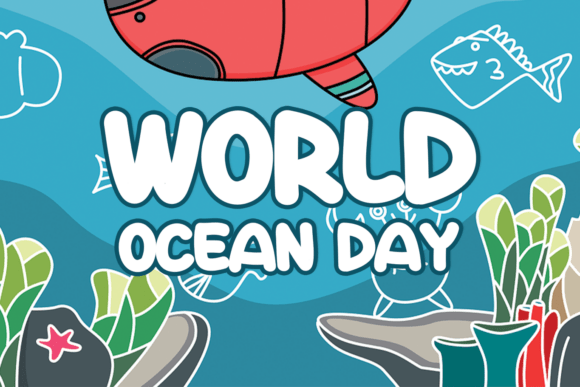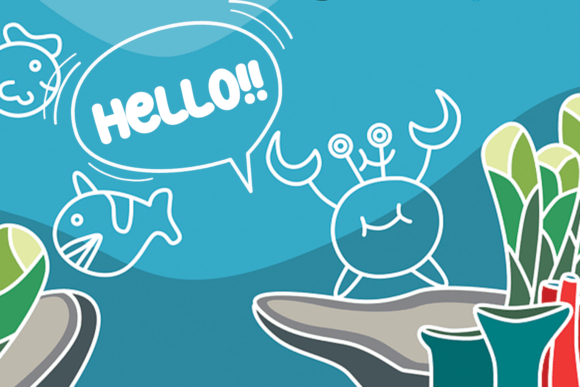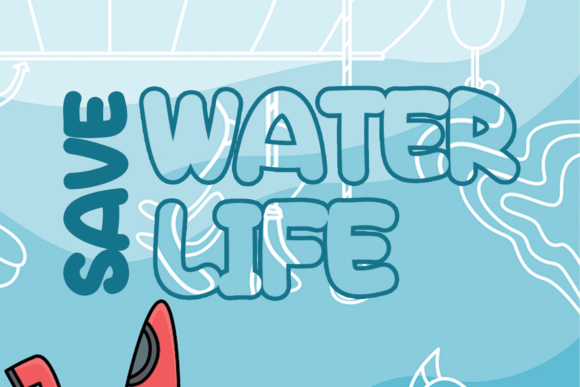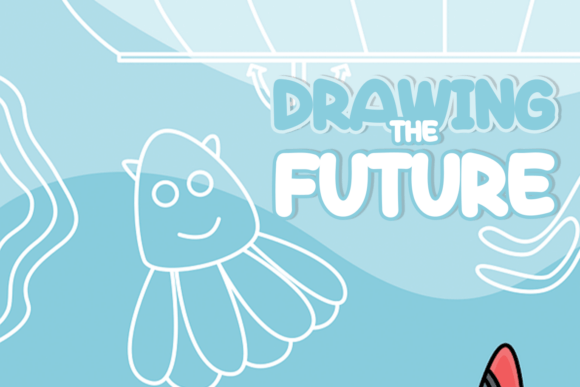
Introducing the Magical World of Disney Font
Are you a designer, crafter, or simply a Disney enthusiast looking for a font that can add a touch of magic to your creative projects? Look no further than the Disney Font! This bold, thick-lettered, and modern display font is expertly designed to make your creation look out of this world. In this article, we’ll dive into the world of Disney Font, exploring its features, benefits, and uses, as well as provide tips and inspiration for incorporating it into your designs.
What is Disney Font?
Disney Font is a modern display font that is inspired by the iconic and beloved Disney brand. Characterized by its bold, thick letters and sleek lines, this font is perfect for creating eye-catching headlines, titles, and captions that demand attention. Its unique design makes it an excellent choice for a wide range of creative projects, from posters and flyers to social media graphics and merchandise.
Key Features of Disney Font
- Bold and Thick Letters: The Disney Font features bold, thick letters that are perfect for creating eye-catching headlines and titles.
- Modern Design: The font’s sleek lines and modern design make it an excellent choice for a wide range of creative projects.
- High Versatility: The Disney Font is highly versatile and can be used for a variety of design projects, from posters and flyers to social media graphics and merchandise.
- Easily Readable: Despite its bold design, the Disney Font is easily readable, making it perfect for use in titles, headings, and captions.
Benefits of Using Disney Font
So, why should you choose Disney Font for your creative projects? Here are just a few benefits of using this amazing font:
- Adds a Touch of Magic: The Disney Font adds a touch of magic to your designs, making them stand out from the crowd.
- Increases Readability: The font’s bold design and clear lines make it easily readable, even at small sizes.
- Perfect for Branding: The Disney Font is perfect for creating branded materials, such as logos, business cards, and letterheads.
- Great for Crafters: The font is also great for crafters, who can use it to create custom signs, labels, and other DIY projects.
Using Disney Font in Your Designs
So, how can you use Disney Font in your designs? Here are a few ideas to get you started:
- Create Eye-Catching Headlines: Use Disney Font to create bold, eye-catching headlines that demand attention.
- Design Custom Posters: Use the font to design custom posters for events, promotions, or simply for fun.
- Make Social Media Graphics: Use Disney Font to create social media graphics that stand out from the crowd.
- Create Merchandise: Use the font to create custom merchandise, such as t-shirts, mugs, and tote bags.
Tips for Working with Disney Font
Here are a few tips for working with Disney Font:
- Use it Sparingly: While Disney Font is bold and eye-catching, it can be overwhelming if used too much. Use it sparingly to create emphasis and add visual interest.
- Pair it with Other Fonts: Disney Font pairs well with a variety of other fonts. Experiment with different pairings to find the one that works best for your design.
- Experiment with Colors: Disney Font looks great in a variety of colors. Experiment with different colors to find the one that works best for your design.
In conclusion, Disney Font is a bold, thick-lettered, and modern display font that is expertly designed to make your creation look out of this world. With its unique design, high versatility, and ease of use, it’s perfect for a wide range of creative projects. Whether you’re a designer, crafter, or simply a Disney enthusiast, Disney Font is sure to add a touch of magic to your designs. So why wait? Download Disney Font today and start creating your own magical designs!